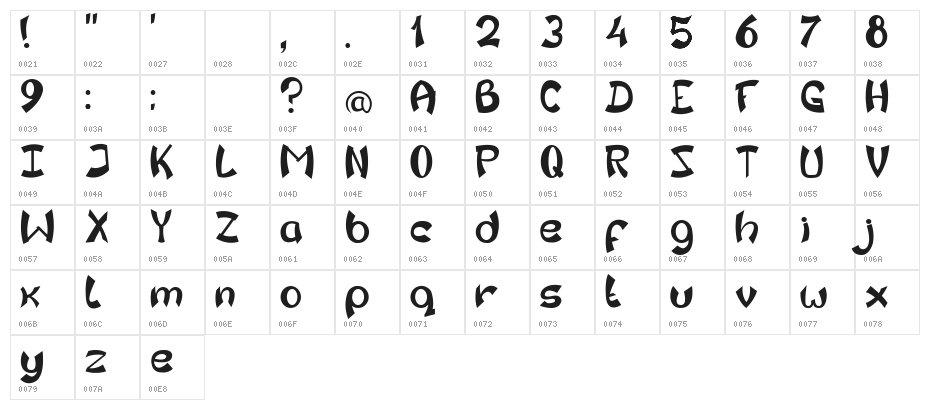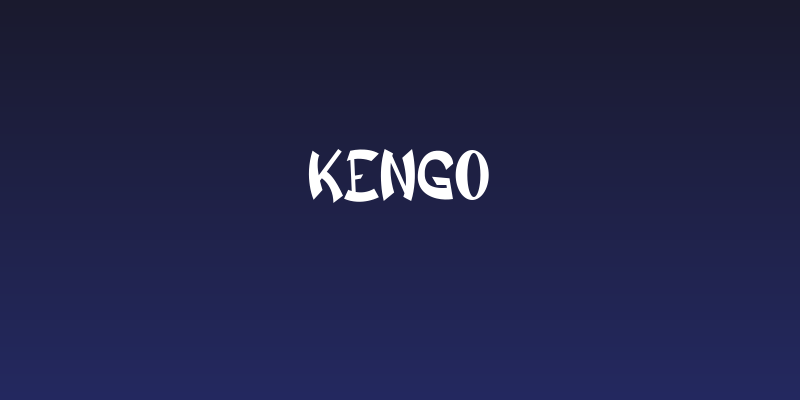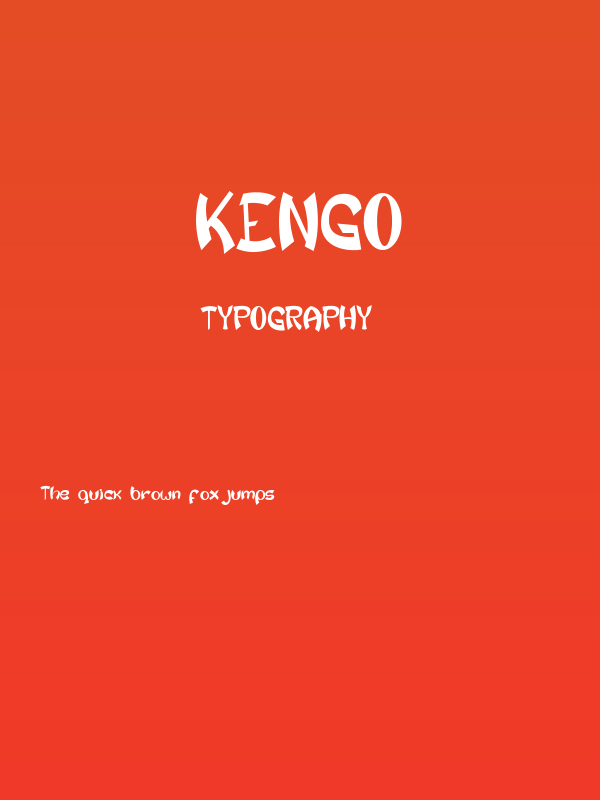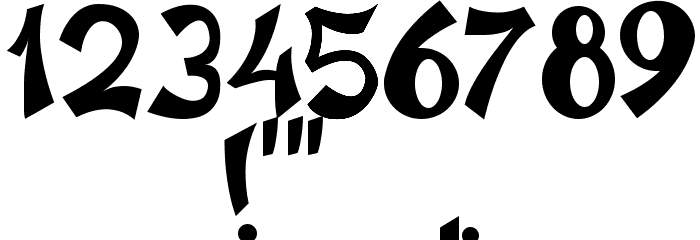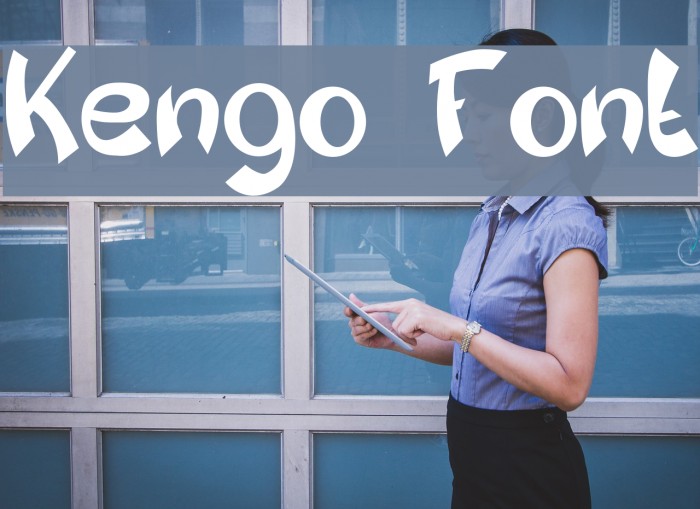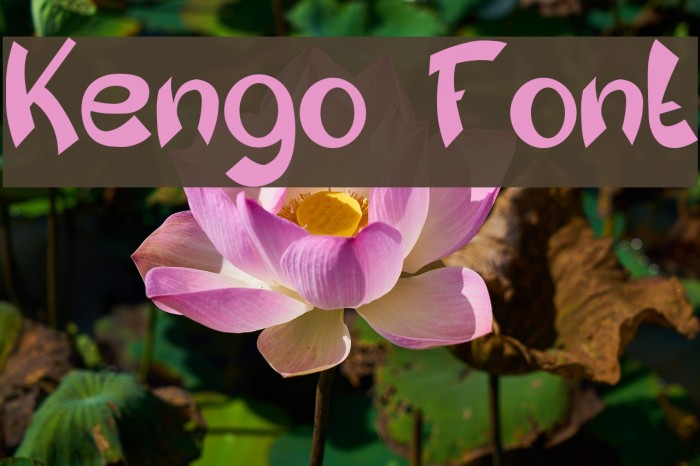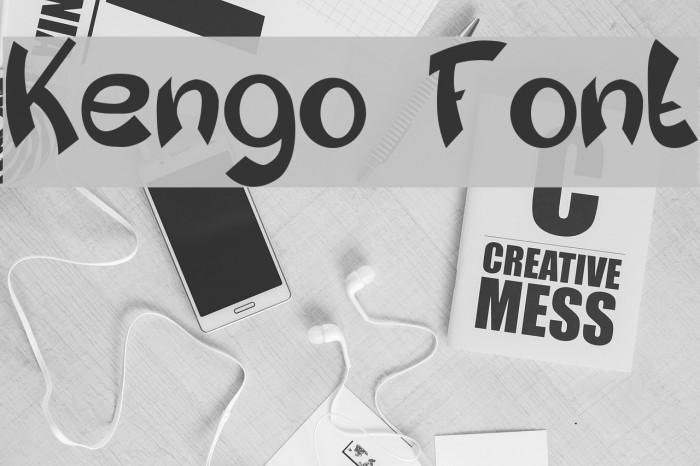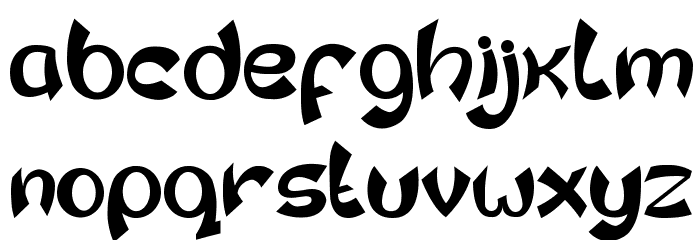
Kengo Font
Kengo Description
This font features a bold and dynamic style with a unique, artistic flair. The characters are crafted with a brush-like appearance, giving them a sense of movement and energy. The uppercase letters are particularly striking, with sharp angles and varying stroke widths that create a sense of rhythm and flow. The lowercase letters maintain this energetic style, with rounded forms that contrast with the angular uppercase. Numbers and special characters are equally expressive, adding to the font's overall dynamic presence. This font's distinct style makes it suitable for creative and eye-catching designs.
| Overall Style | Modern, Artistic |
| Proposed Projects | Ideal for posters, logos, branding, and any project requiring a bold, artistic touch. |